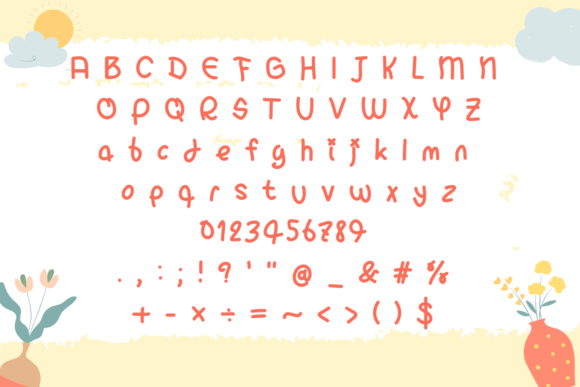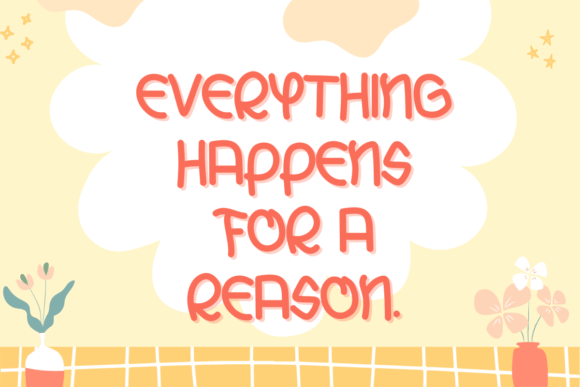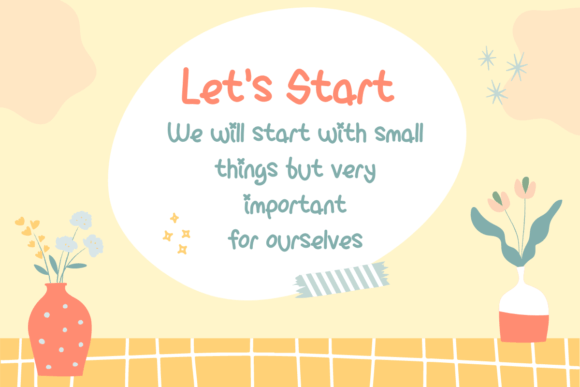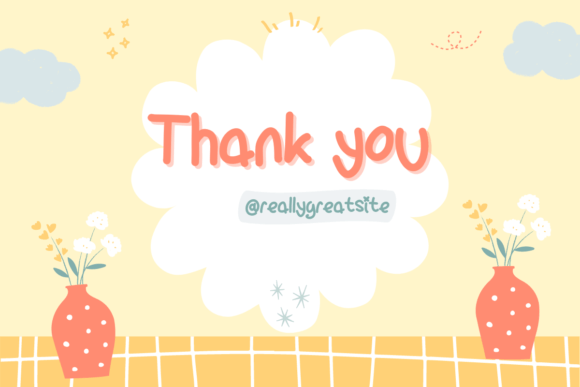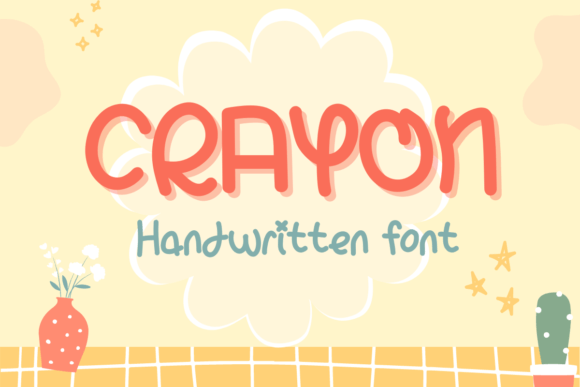
Crayon Font: Add a Pop of Fun to Your Designs
Are you looking for a font that can add a touch of playfulness and whimsy to your designs? Look no further than the Crayon font! This fun and quirky handwritten font is perfect for a variety of projects, from personal notes and diaries to professional designs and crafts.
What is Crayon Font?
Crayon font is a type of handwritten font that mimics the look of writing with a crayon. It has a distinctive, childlike quality that makes it perfect for designs that need to be fun and engaging. The font is characterized by its irregular lines, uneven lettering, and colorful feel.
Uses of Crayon Font
Crayon font is a versatile font that can be used for a wide range of projects. Here are some ideas to get you started:
- Note-taking and journaling: Crayon font is perfect for taking notes, writing a diary, or jotting down quick reminders. It adds a personal touch to your writing and makes it more enjoyable to read.
- Greeting cards and invitations: Create custom greeting cards, invitations, and party decorations with Crayon font. It’s a great way to add a personal touch and make your cards stand out.
- Banners and signs: Use Crayon font to create eye-catching banners and signs for parties, events, or promotions. It’s a great way to grab attention and add a playful touch.
- Content creation: Add a touch of whimsy to your blog posts, social media updates, or website content with Crayon font. It’s a great way to break up text and make your content more engaging.
- Mugs, cards, and shirts: Create custom merchandise with Crayon font, such as mugs, cards, and shirts. It’s a great way to add a personal touch and make your gifts more special.
- Stationery and crafts: Use Crayon font to create custom stationery, stickers, and other craft supplies. It’s a great way to add a playful touch to your crafts and make them more unique.
- Social media posts: Add a touch of fun to your social media posts with Crayon font. It’s a great way to make your posts more engaging and stand out in a crowded feed.
Benefits of Using Crayon Font
There are many benefits to using Crayon font in your designs. Here are a few:
- Playful and engaging: Crayon font adds a playful and engaging touch to your designs, making them more enjoyable to read and interact with.
- Versatile: Crayon font can be used for a wide range of projects, from personal notes to professional designs.
- Easy to read: Despite its playful nature, Crayon font is still easy to read, making it perfect for designs that need to communicate a message.
- Customizable: Crayon font can be customized to fit your brand’s style and personality, making it a great choice for businesses and individuals alike.
Tips for Using Crayon Font
Here are a few tips for using Crayon font in your designs:
- Use it sparingly: Crayon font can be playful and fun, but it can also be overwhelming if used too much. Use it sparingly to add a touch of whimsy to your designs.
- Pair it with other fonts: Crayon font pairs well with other fonts, such as sans-serif fonts or script fonts. Experiment with different pairings to find the one that works best for your design.
- Experiment with colors: Crayon font is all about color and playfulness. Experiment with different colors and color combinations to find the one that works best for your design.
Crayon font is a fun and quirky handwritten font that can add a touch of playfulness and whimsy to your designs. With its irregular lines, uneven lettering, and colorful feel, it’s perfect for a wide range of projects, from personal notes and diaries to professional designs and crafts. Whether you’re a designer, crafter, or simply someone who loves to have fun, Crayon font is a great choice for adding a pop of fun to your designs.